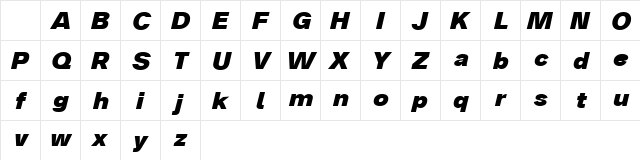
Complete Analogue Reduced 86 Black Oblique glyph index. Displaying only characters natively supported by Analogue Reduced 86 Black Oblique font.
Analogue Reduced is a composed and adaptable typeface that performs quietly and consistently across a wide range of design contexts. The slanted form adds forward momentum and visual energy.
Pro Tip: Use Analogue Reduced for emphasis, pull quotes, and subheadings where its slanted energy can add rhythm to the layout.